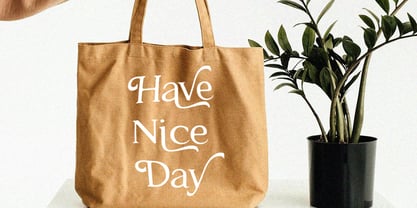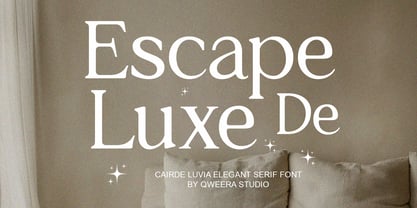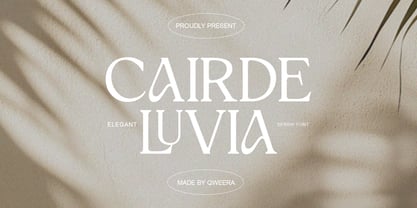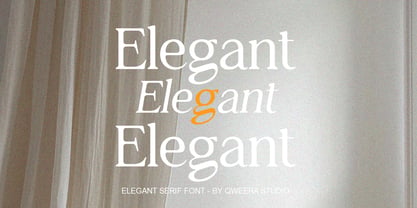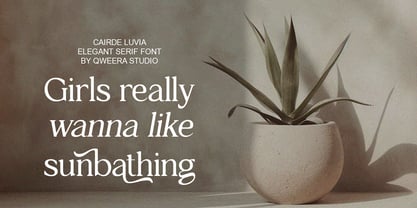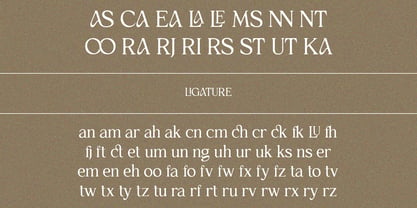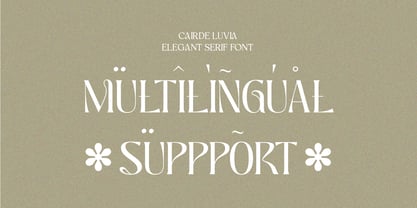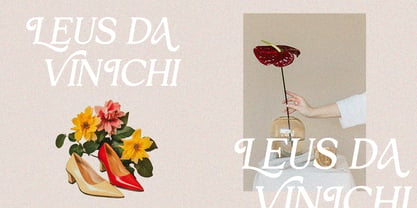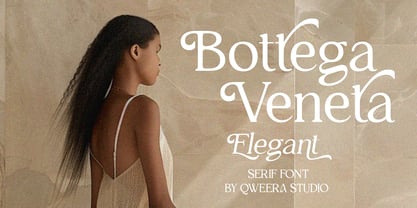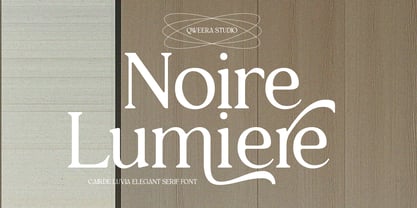
Cairde Luvia
The Cairde Luvia Font Family was designed by Idhham Cholid Rikzano Yahya and published by Qweera Studio. Cairde Luvia contains 2 styles and family package options. More about this family
Cairde Luvia - Elegant Luxury Serif Font for Sophisticated Branding Cairde Luvia is an exquisite serif typeface that embodies refined elegance and timeless luxury. Featuring both Regular and Italic styles with premium alternates and ligatures, this font is meticulously crafted for high-end branding, luxury logos, premium packaging, and editorial designs that demand sophistication and prestige. Where Timeless Elegance Meets Modern Luxury With its graceful serifs and flowing italic variant, Cairde Luvia delivers exceptional versatility for discerning brands. The carefully designed alternates and ligatures enable flawless typographic harmony, perfect for creating distinctive visual identities with an air of exclusivity. Premium Features Include: Luxury Serif Design – Exquisite letterforms with refined details Dual Style Versions – Regular & italic for dynamic applications Stylish Alternates – 20+ elegant character variations Sophisticated Ligatures – Seamless letter connections Universal Compatibility – From business cards to billboards Extended Latin Support – Comprehensive character set Elevate Your Brand with Cairde Luvia's Unmatched Elegance Ideal for: Luxury fashion branding High-end cosmetic packaging Premium editorial layouts Elegant logo creation Sophisticated stationery design Available Now – Experience Cairde Luvia's Refined Luxury!